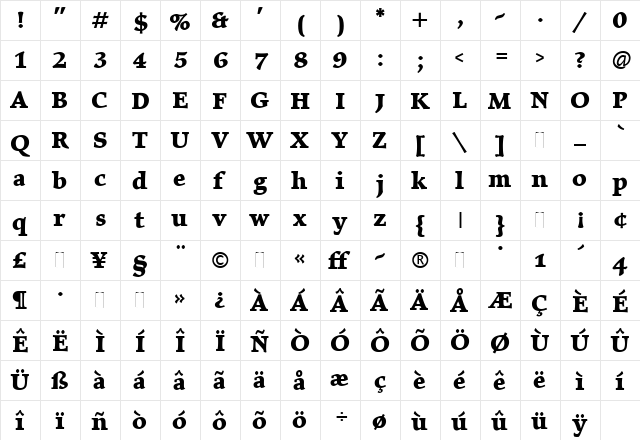
Elysium Bold Regular
Design Context for Elysium Bold Typeface
Elysium Bold takes a measured approach to typography — its balanced proportions and neutral character make it a reliable workhorse for both digital and print work. The heavy weight commands attention and anchors typographic hierarchies.